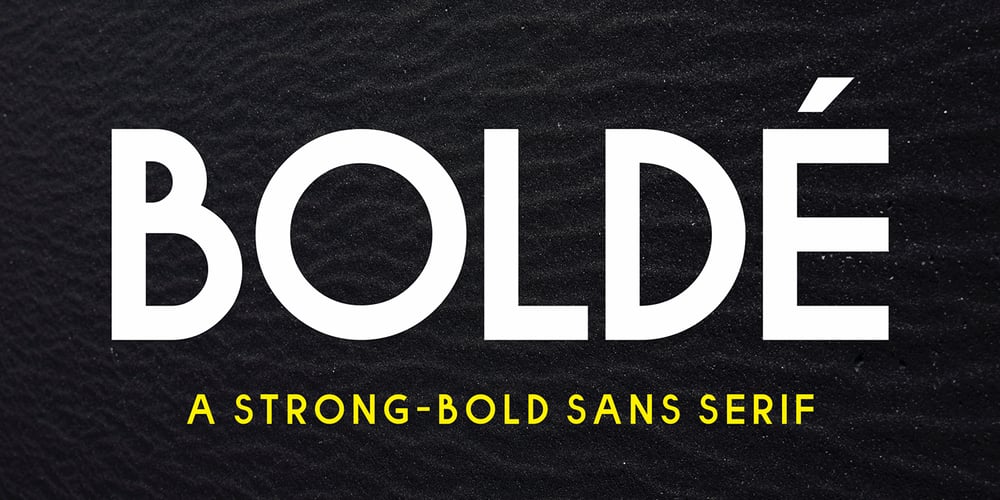
Bolde Font Family was designed by Icep Anwar Fadhil and published by Figuree Studio. Bolde contains 5 styles and family package options. Bolde is a powerful sans serif font family with modern touches. A balance of hard lines and smooth curves makes them able to stand on their own dynamicallyFeatures: five all caps font, Numbers & Punctuation / Extensive Language SupportBolde works great in any branding, logos, magazines, film. The different styles give you the full range to explore a whole host of applications.Thanks for having a peek at Bolde.As always, if you have any questions just send me a message!